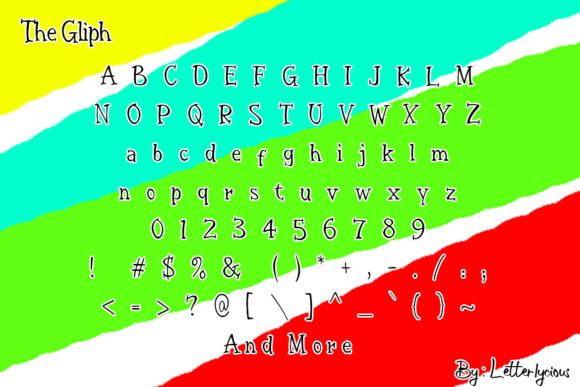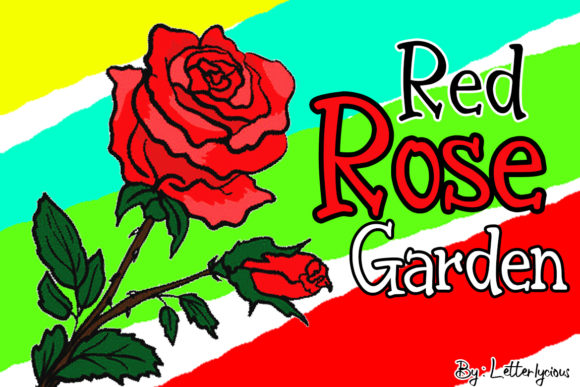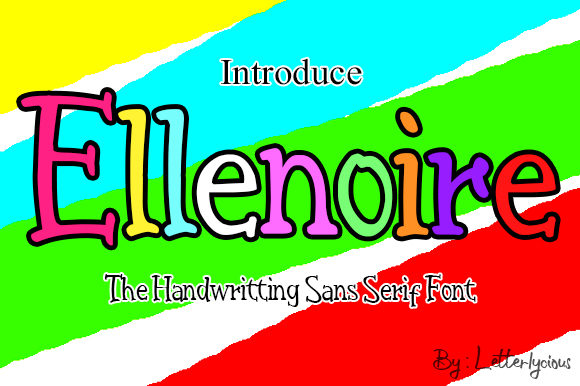
Introducing Ellenoire Font: The Whimsical Display Font to Brighten Up Your Crafting Projects
Are you a designer or crafter looking for a unique and playful font to add a touch of personality to your projects? Look no further than Ellenoire Font! This whimsical display font is designed to bring a sense of fun and creativity to any crafting project, and we’re excited to dive into its features and benefits.
What is Ellenoire Font?
Ellenoire Font is a carefully crafted display font that exudes a sense of playfulness and whimsy. Its unique design makes it perfect for adding a touch of personality to a wide range of crafting projects, from DIY signs and posters to handmade cards and invitations.
Key Features of Ellenoire Font
- Whimsical Design: Ellenoire Font boasts a one-of-a-kind design that’s sure to turn heads. Its playful curves and lines make it a standout choice for any crafting project.
- Display Font: As a display font, Ellenoire is optimized for use in titles, headings, and other large-format text applications.
- Unique Character: Each letter in the Ellenoire Font has its own distinct personality, making it perfect for adding a touch of whimsy to your projects.
How to Use Ellenoire Font in Your Crafting Projects
Ellenoire Font is incredibly versatile and can be used in a wide range of crafting projects, including:
- DIY Signs and Posters: Add a touch of personality to your signs and posters with Ellenoire Font’s playful design.
- Handmade Cards and Invitations: Make your cards and invitations stand out with Ellenoire Font’s unique character.
- Crafting Tutorials: Use Ellenoire Font to add a touch of whimsy to your crafting tutorials and instructions.
- Social Media Graphics: Add a playful touch to your social media graphics with Ellenoire Font’s bold and eye-catching design.
Tips and Tricks for Getting the Most Out of Ellenoire Font
Here are a few tips and tricks for getting the most out of Ellenoire Font:
- Experiment with Colors: Ellenoire Font looks great in a wide range of colors, so don’t be afraid to experiment and find the perfect hue for your project.
- Mix and Match: Combine Ellenoire Font with other fonts and design elements to create a unique and eye-catching look.
- Play with Size: Ellenoire Font looks great in large and small sizes, so don’t be afraid to experiment with different sizes to find the perfect fit for your project.
Ellenoire Font is a unique and playful display font that’s perfect for adding a touch of personality to any crafting project. With its whimsical design, easy-to-use format, and versatility, Ellenoire Font is a must-have for designers and crafters looking to brighten up their projects. So why wait? Download Ellenoire Font today and get creative with its unique playfulness!